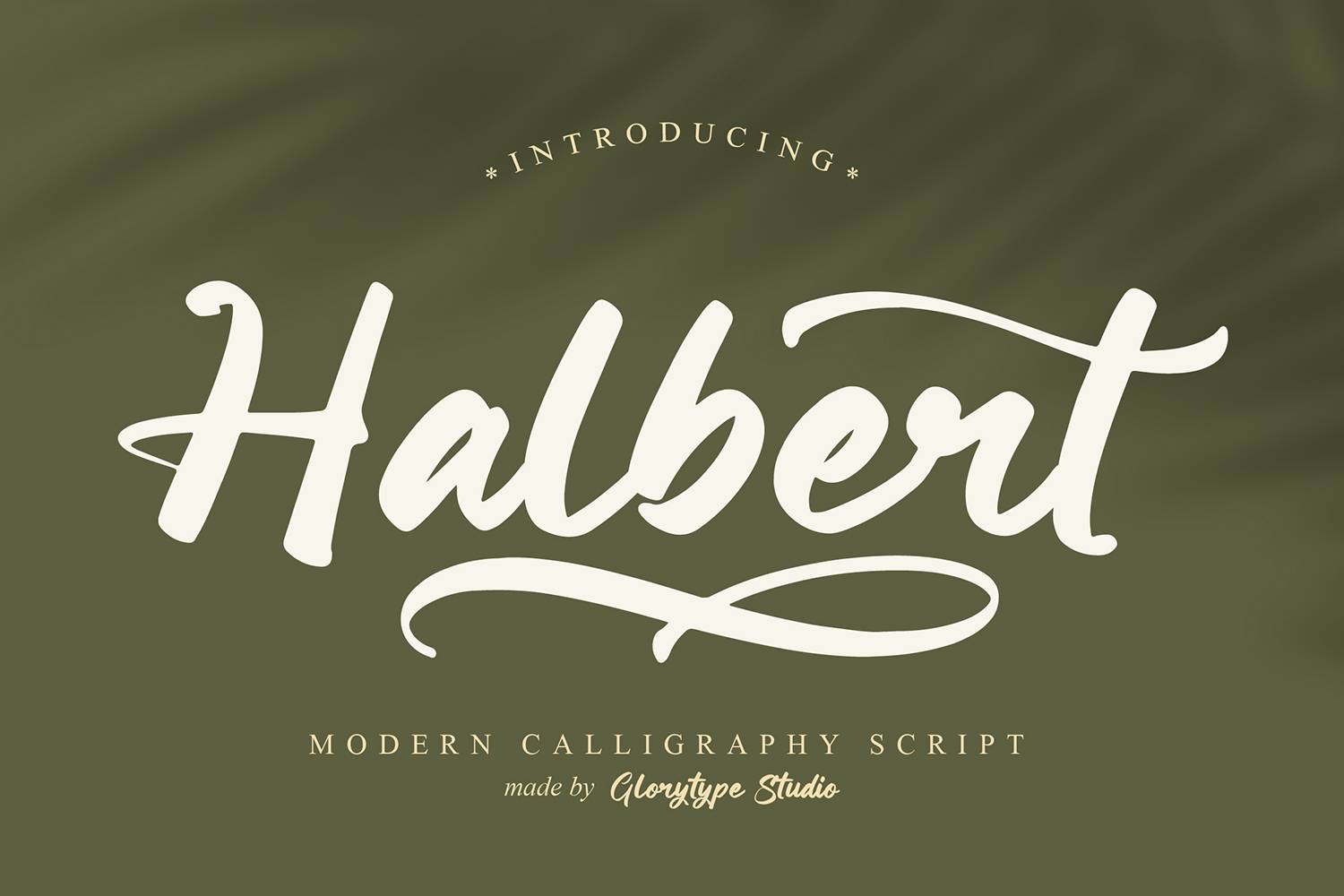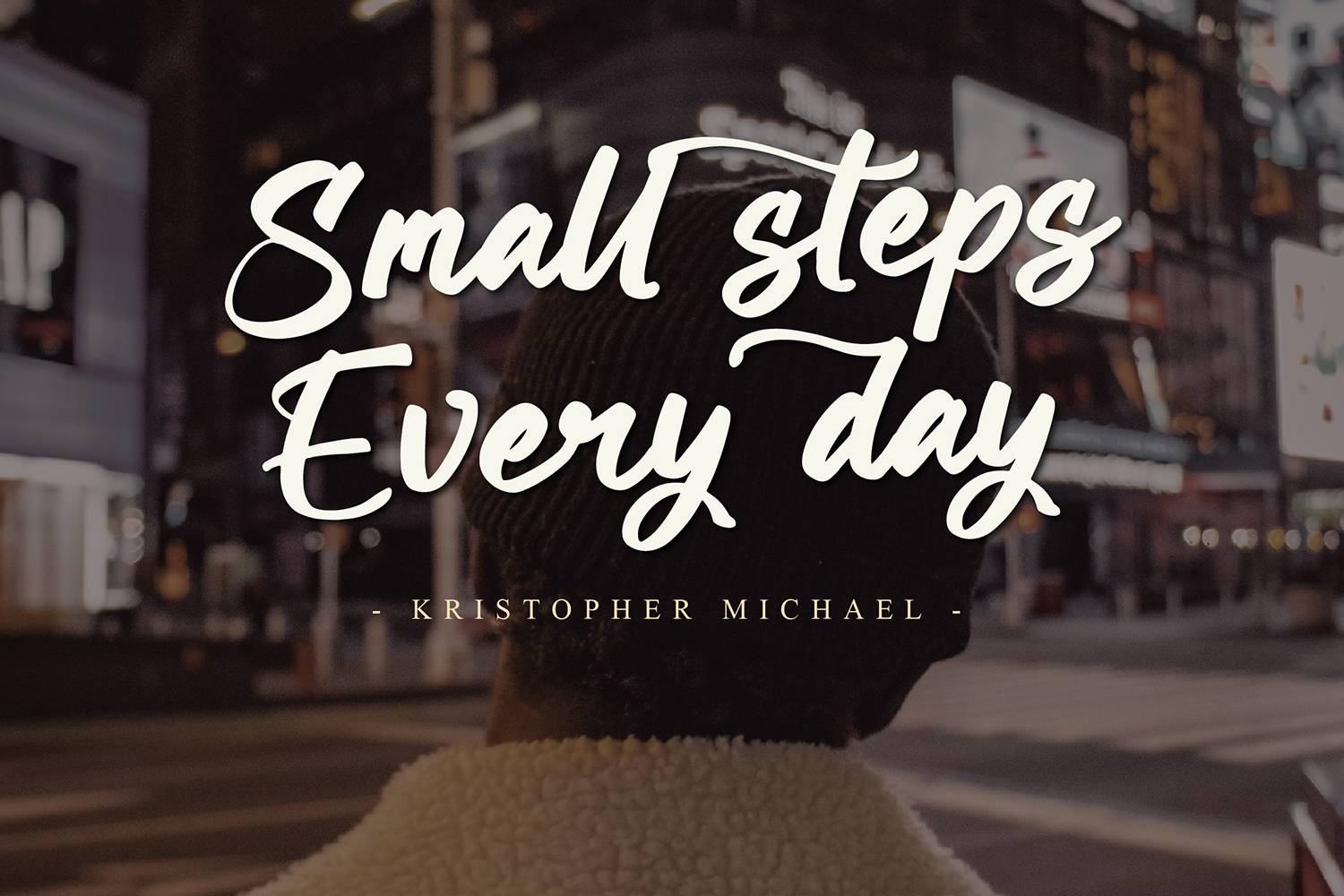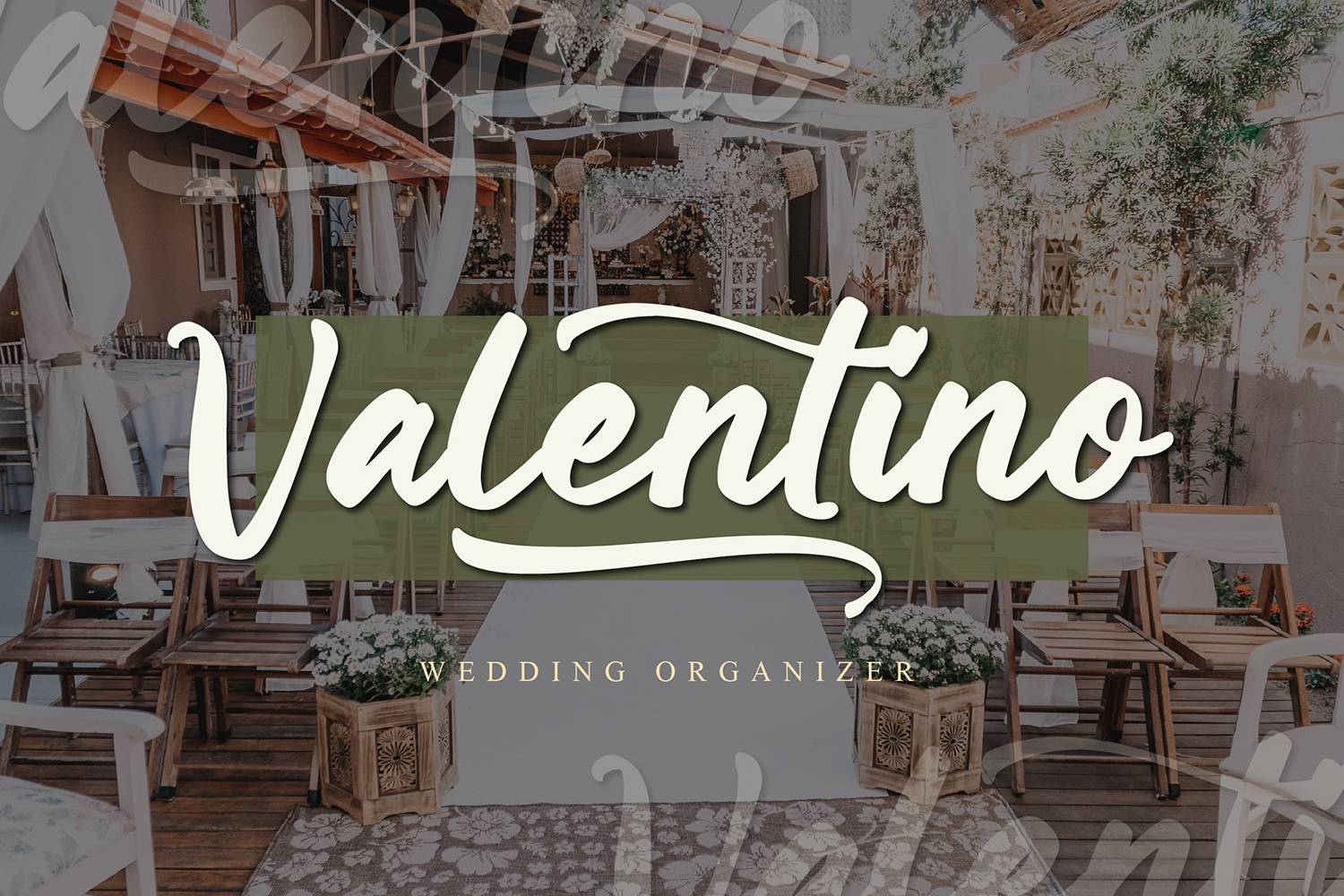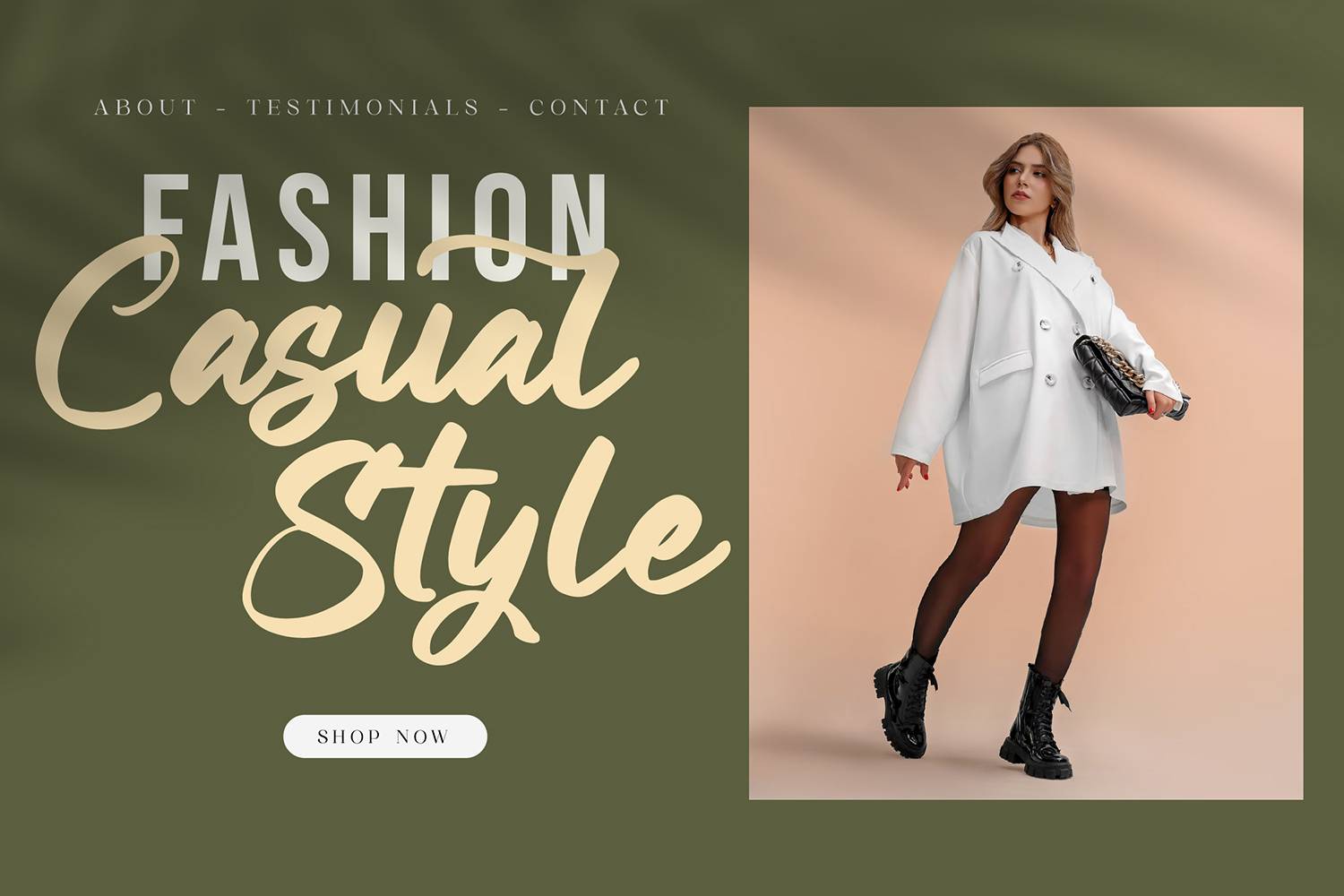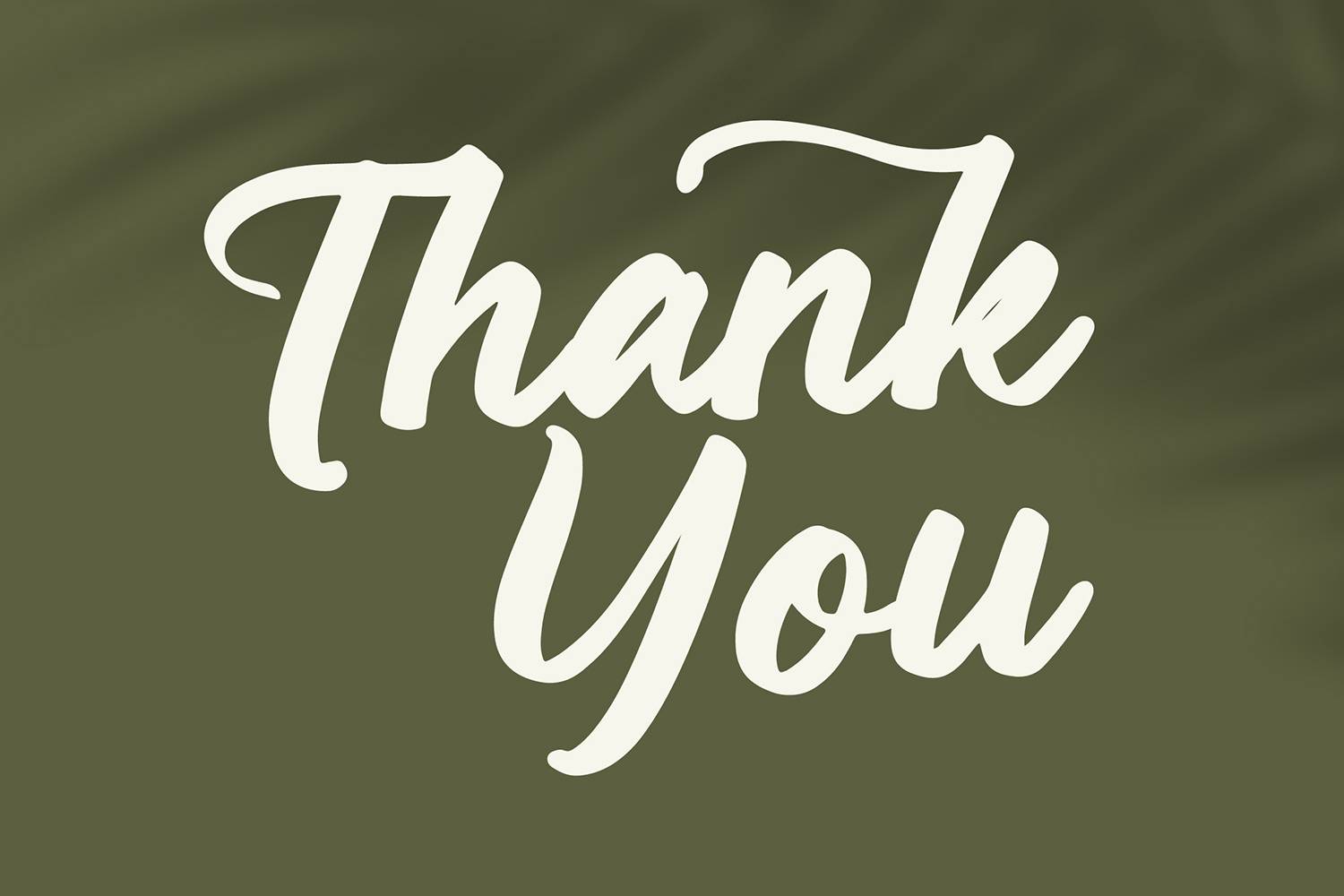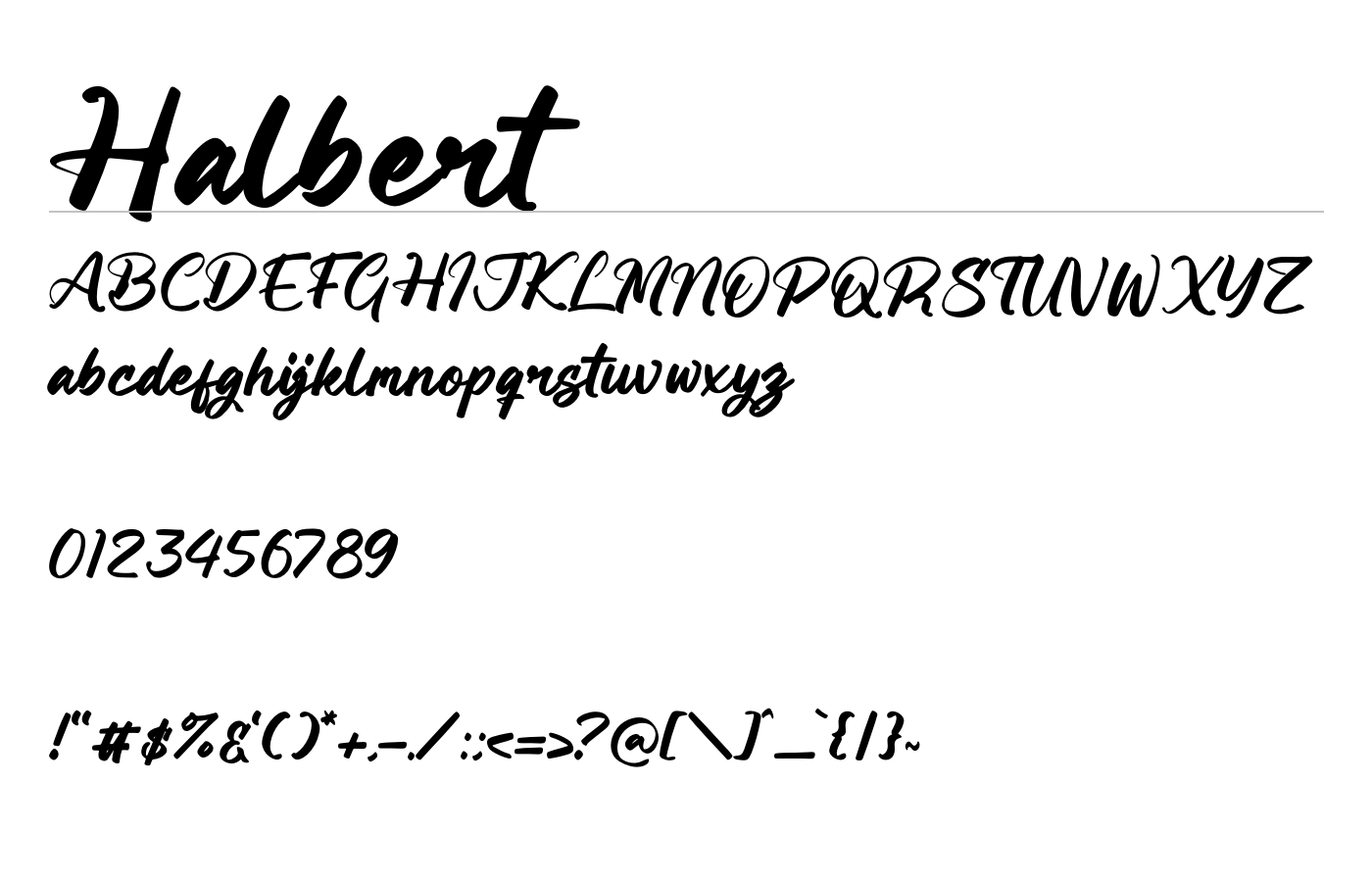
Halbert is a bold, cursive script font featuring smooth, flowing strokes that give it a lively and friendly character. Its strong weight and slightly condensed letterforms make it ideal for eye-catching headlines, logos, and branding that seek a playful yet confident vibe. This font works well in creative and informal contexts where a touch of personality and warmth is desired.
Halbert Font
About Halbert Font